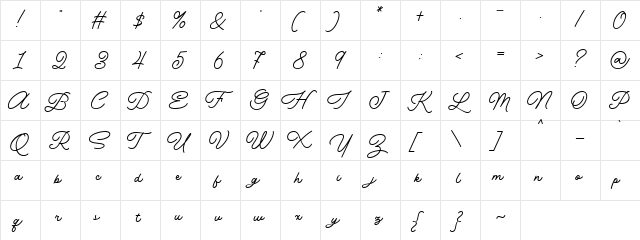
Kinderline Script DEMO Regular
Design Context for Kinderline Script DEMO Typeface
Kinderline Script DEMO flows with the natural rhythm of handwritten lettering, making it ideal for designs that call for warmth and personal expression.
Font Pairing: Combine Kinderline Script DEMO with a simple geometric sans for maximum contrast — the tension between flowing curves and clean structure is a classic typographic pairing.
Pro Tip: Use Kinderline Script DEMO for short runs of text — names, titles, or taglines. Extended body copy in script faces tires the eye quickly.